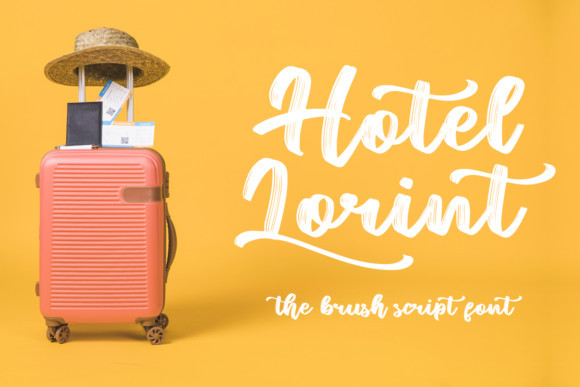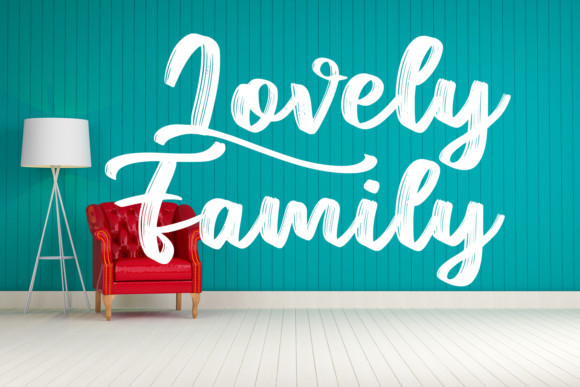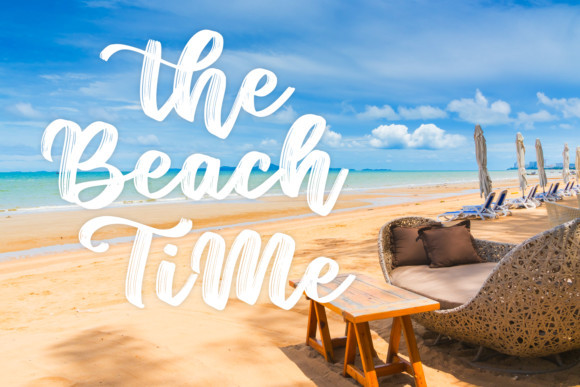
Hotel Lorint Font
Hotel Lorint is a new brush script font great for projects that need a cute brush feel.
This font can be used for quotes, apparel, branding, logo, magazine, packaging, advertising, and more,